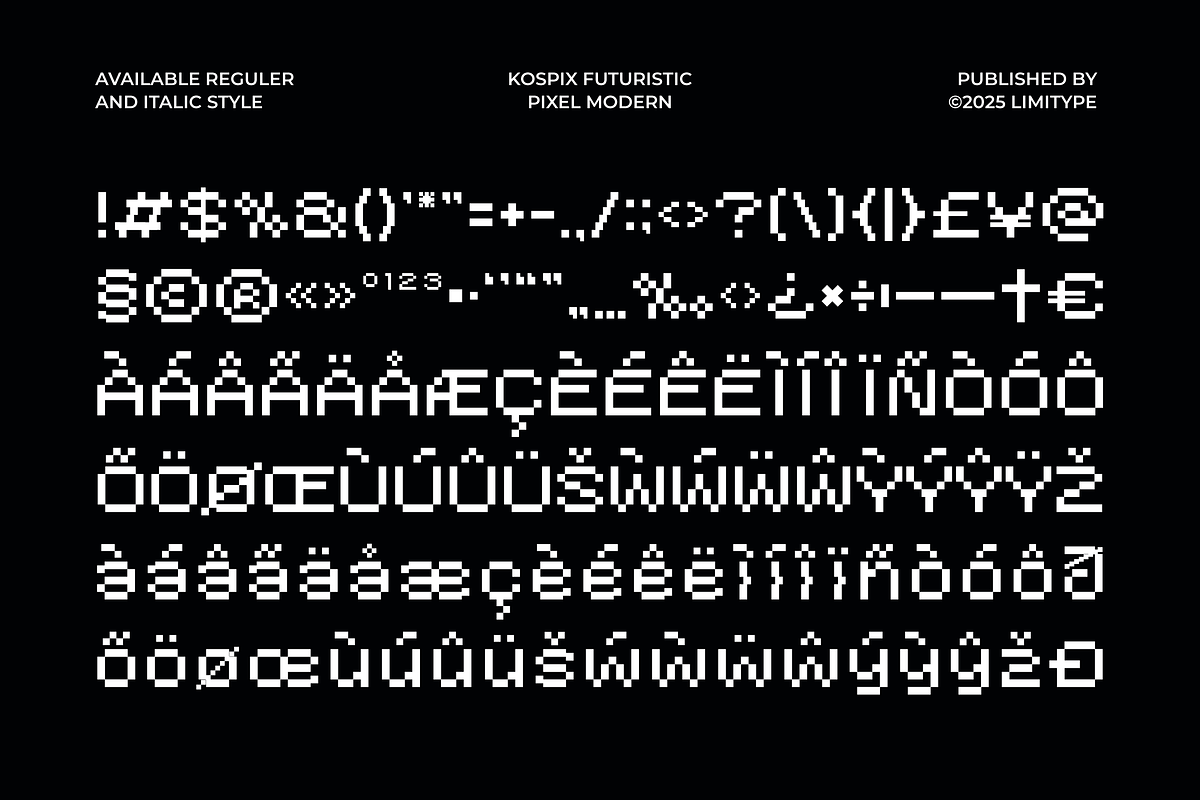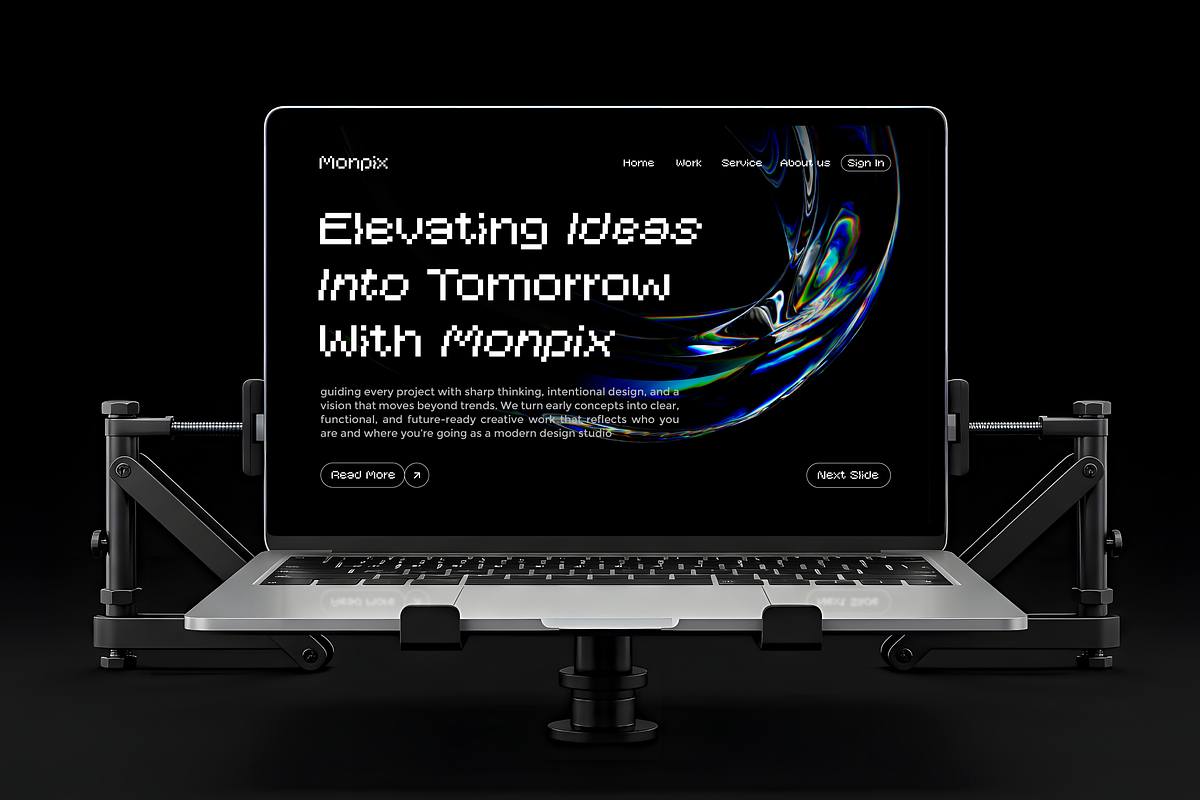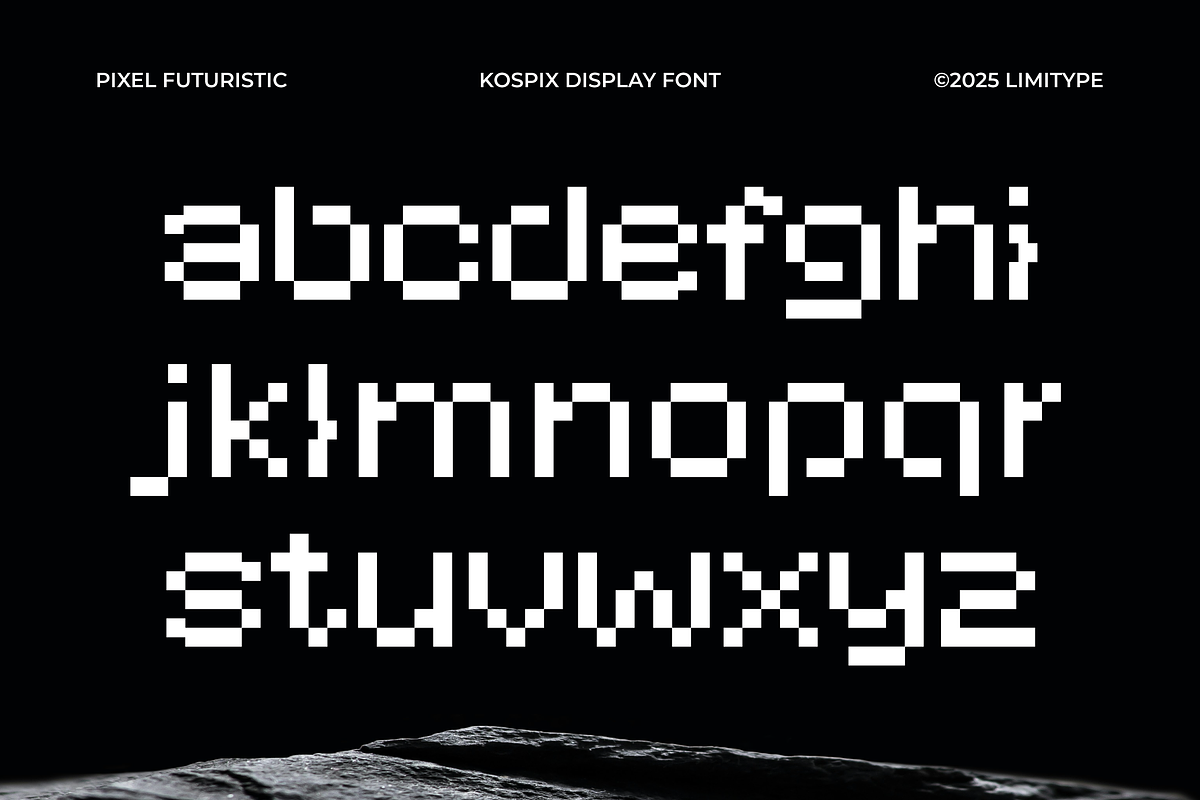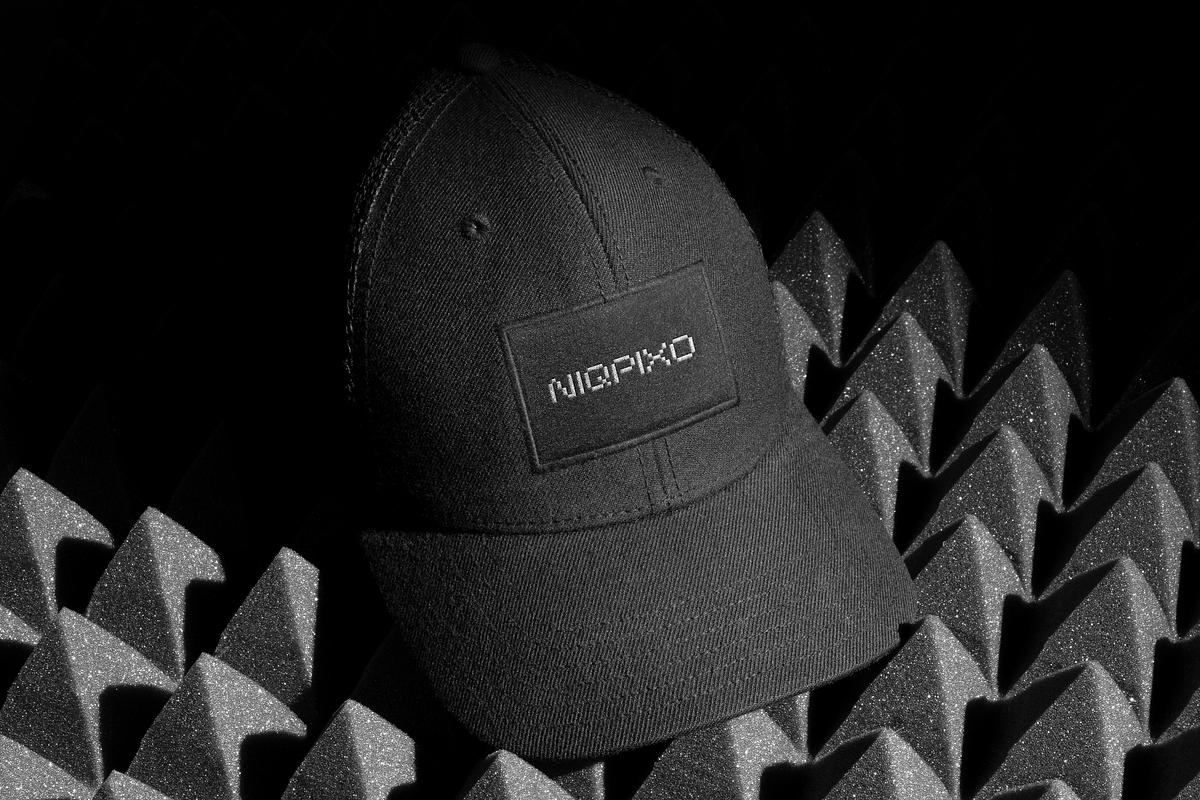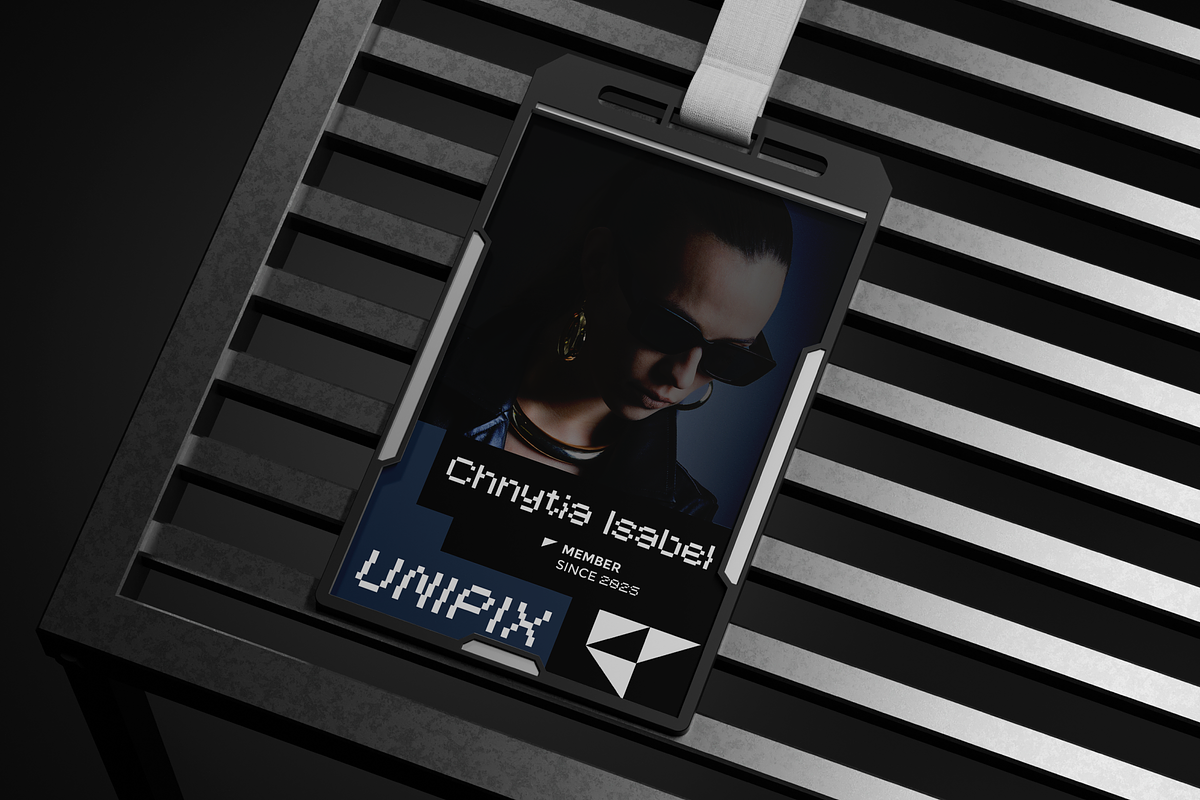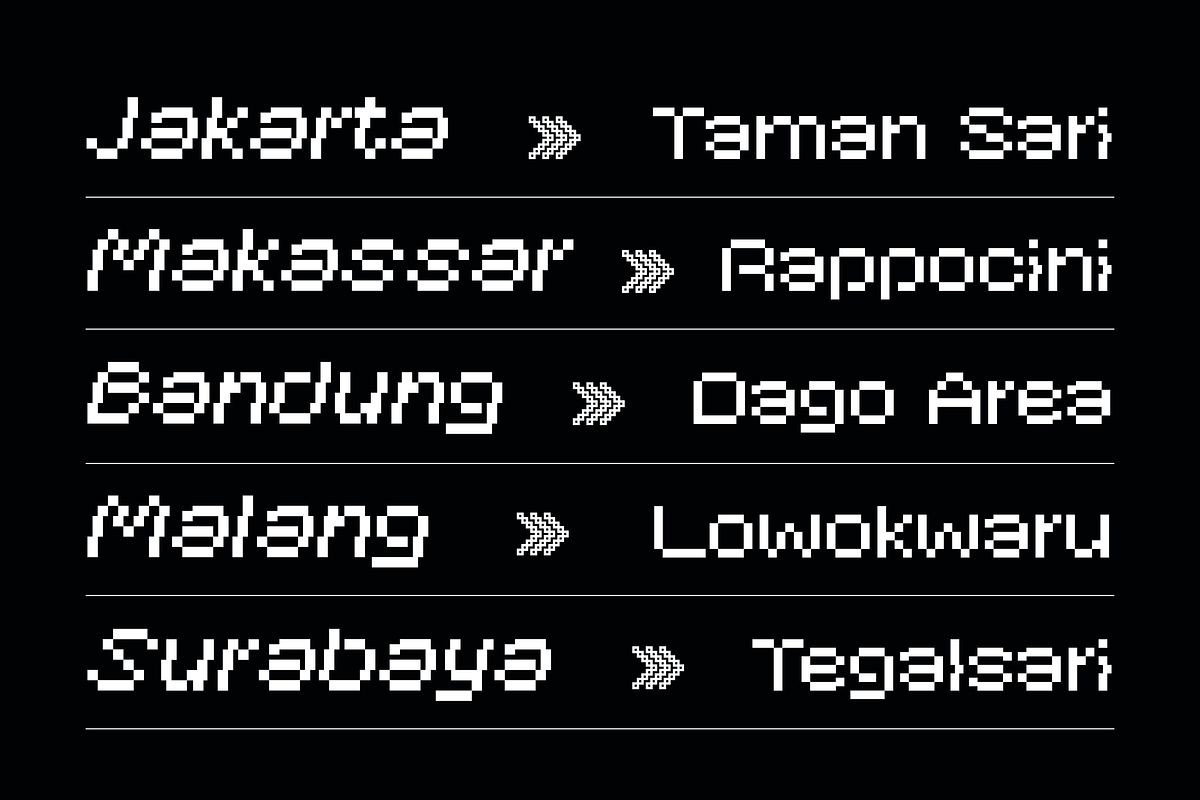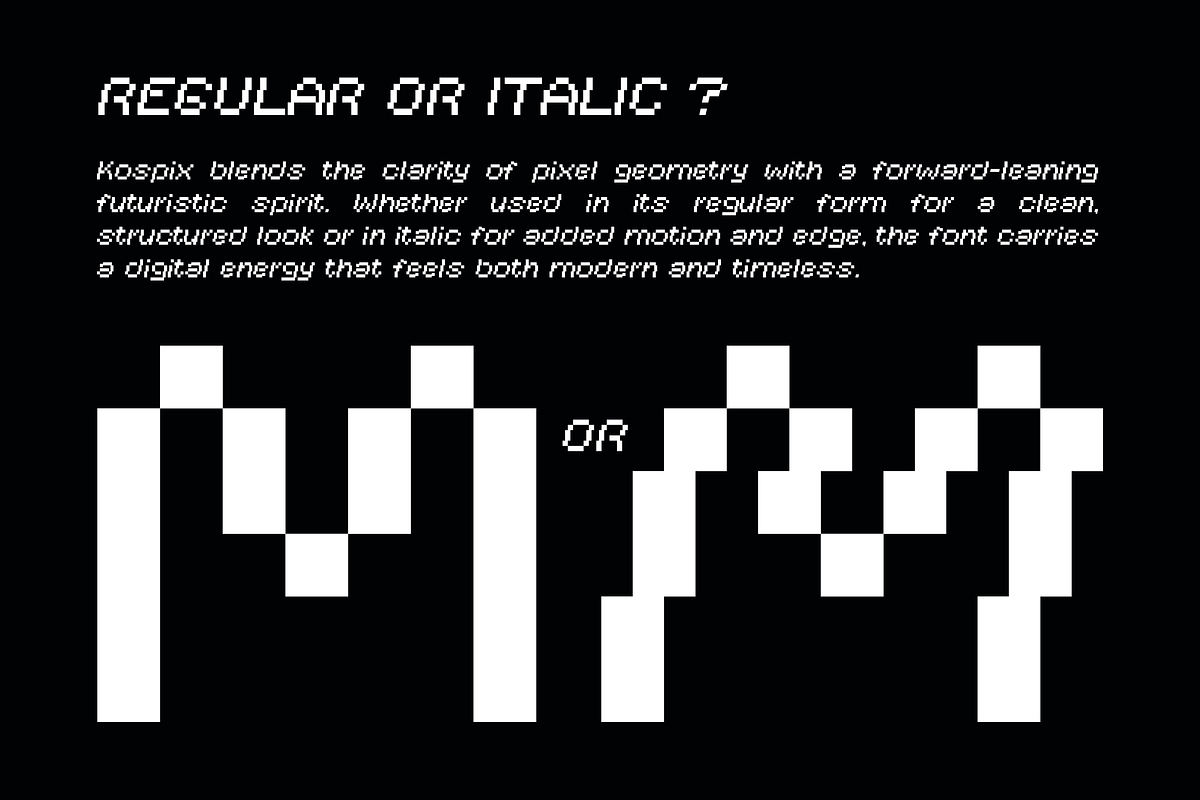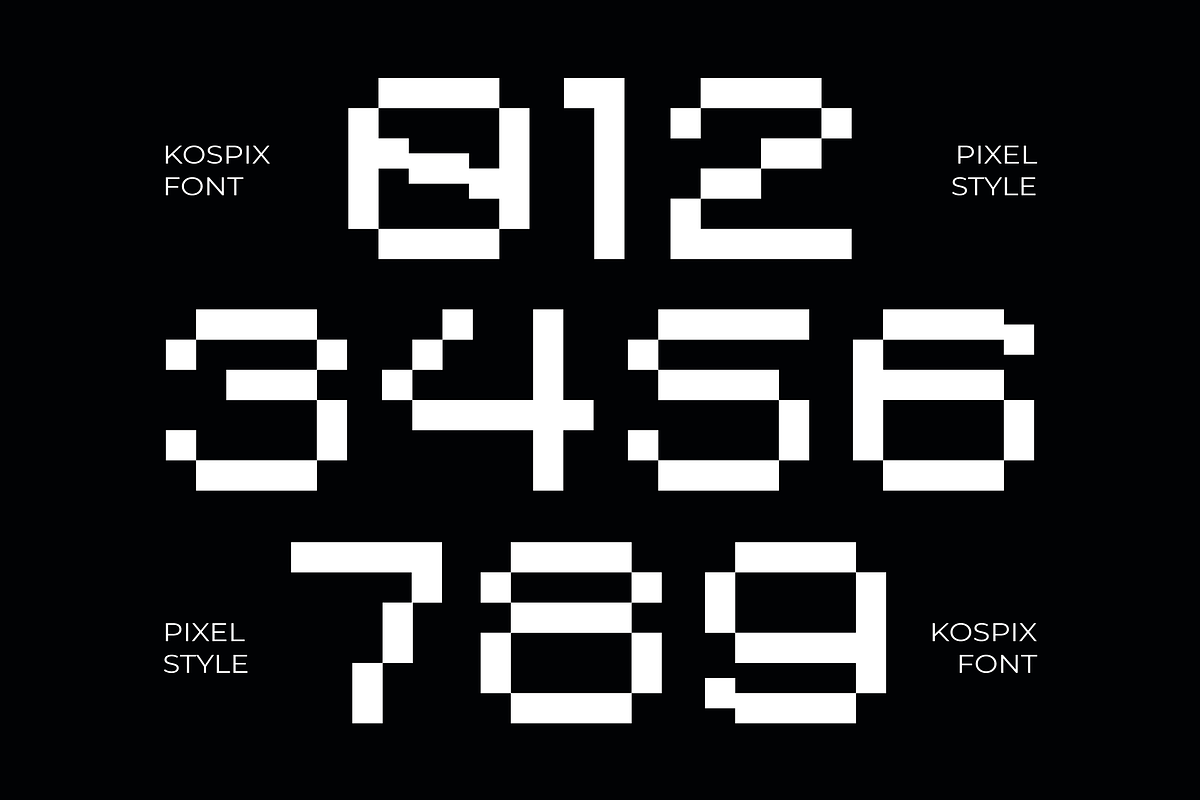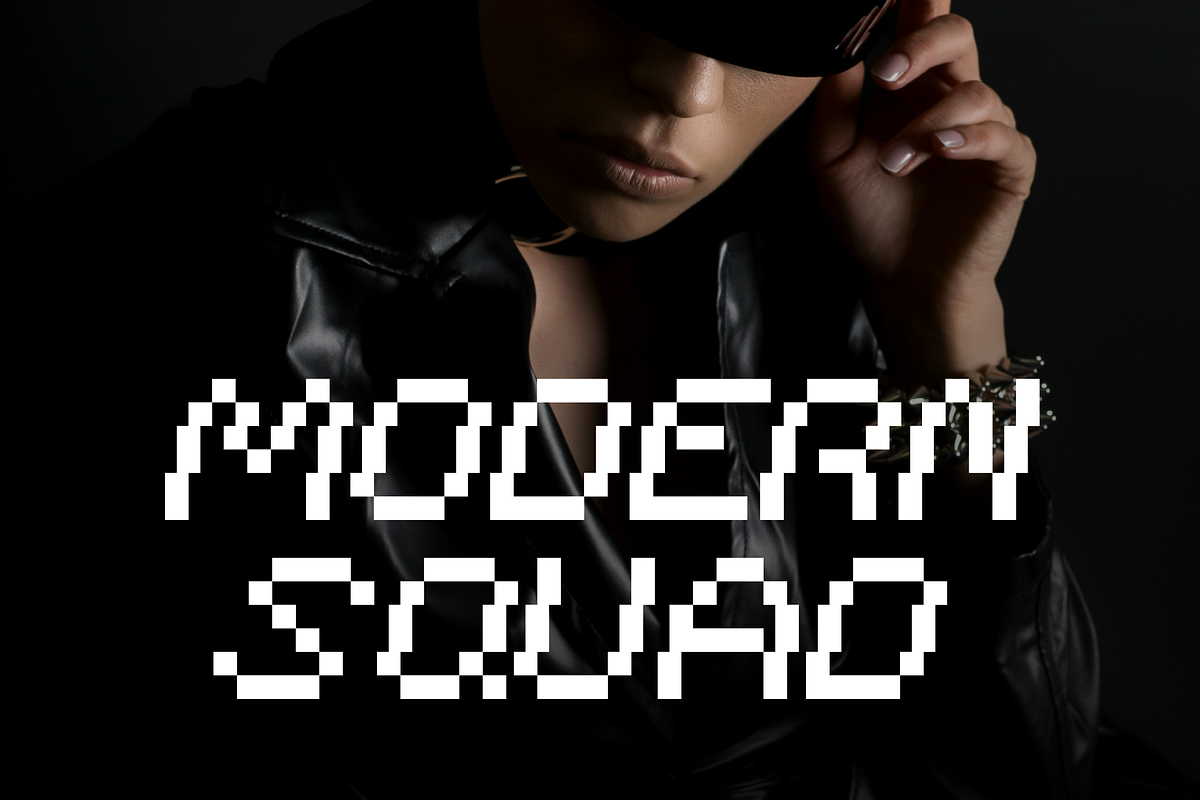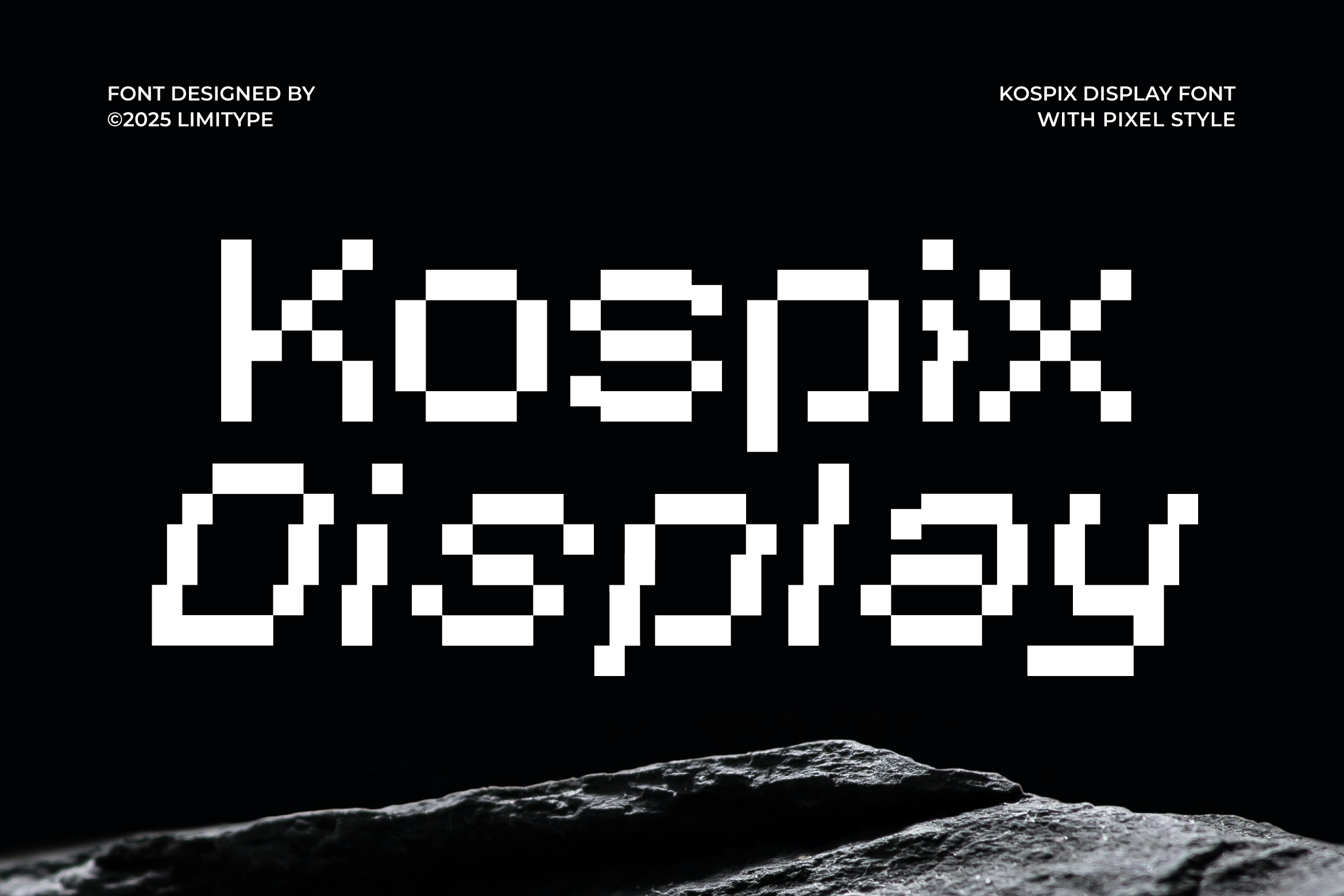
Kospix - Pixel Font
Kospix display is a clean pixel typeface, crafted with grid based square shapes that bring a classic retro digital feel. The italic option adds a slight dynamic slant that makes the pixel look more expressive without changing its signature character. Suitable for game UI, retro branding, interface text, and creative display designs, this font offers clarity, nostalgia, and versatility in one package. Kospix available with: - Uppercase - Lowercase - Number - Symbol - Multilingual Format: - OTF